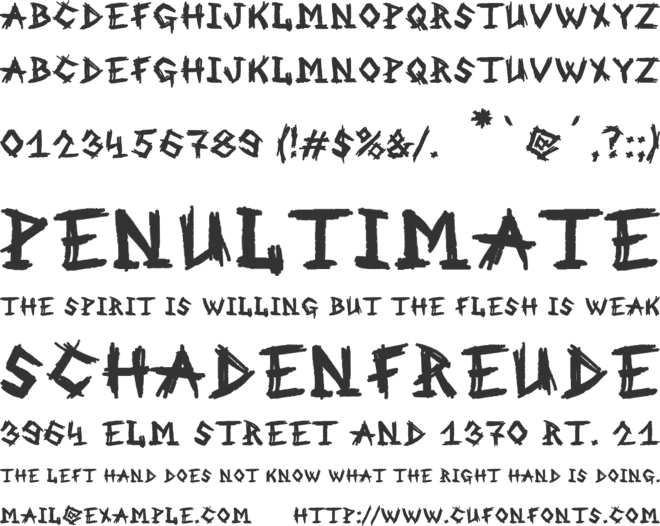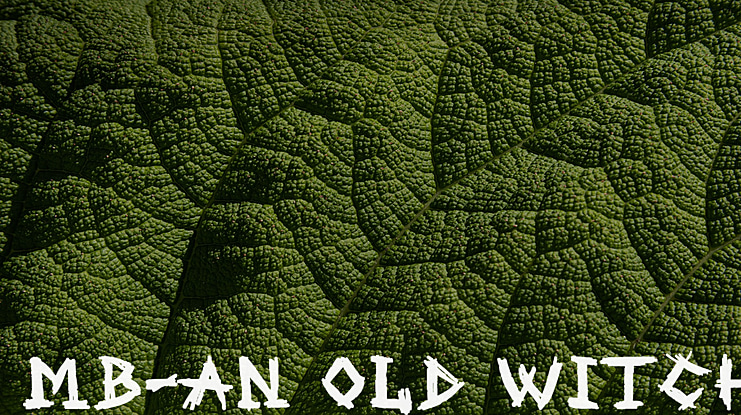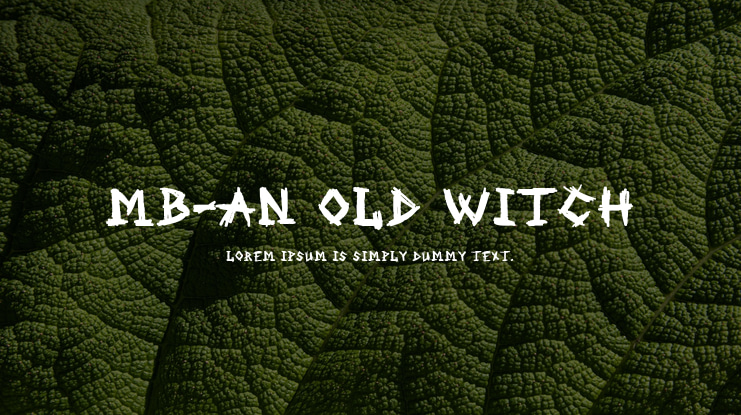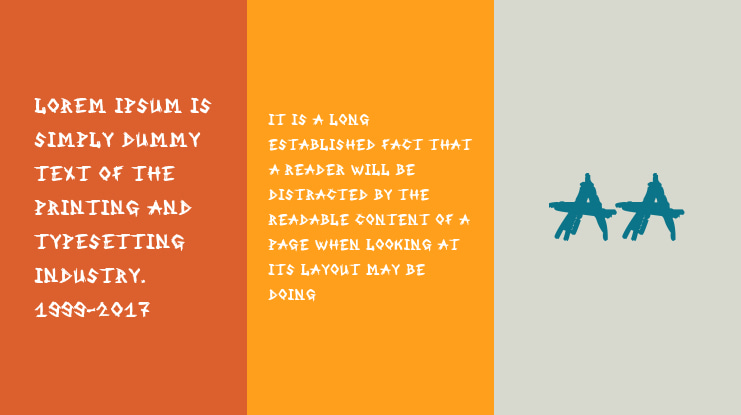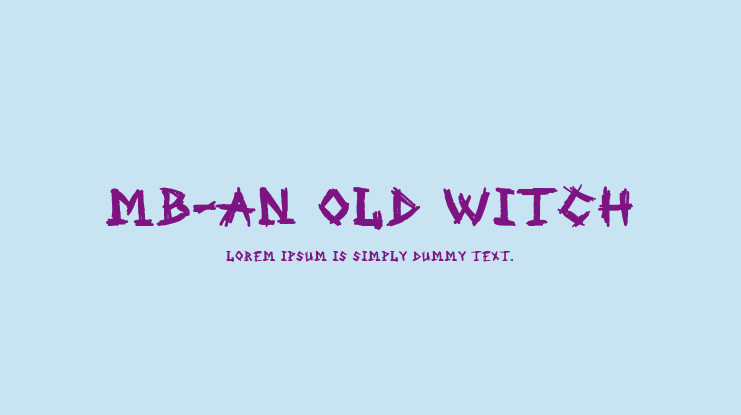
MB-An Old Witch Font
I just had some fun with Photoshop and designed one more simple scratched, but readable font. Looks not bad for only 40 minutes of work.